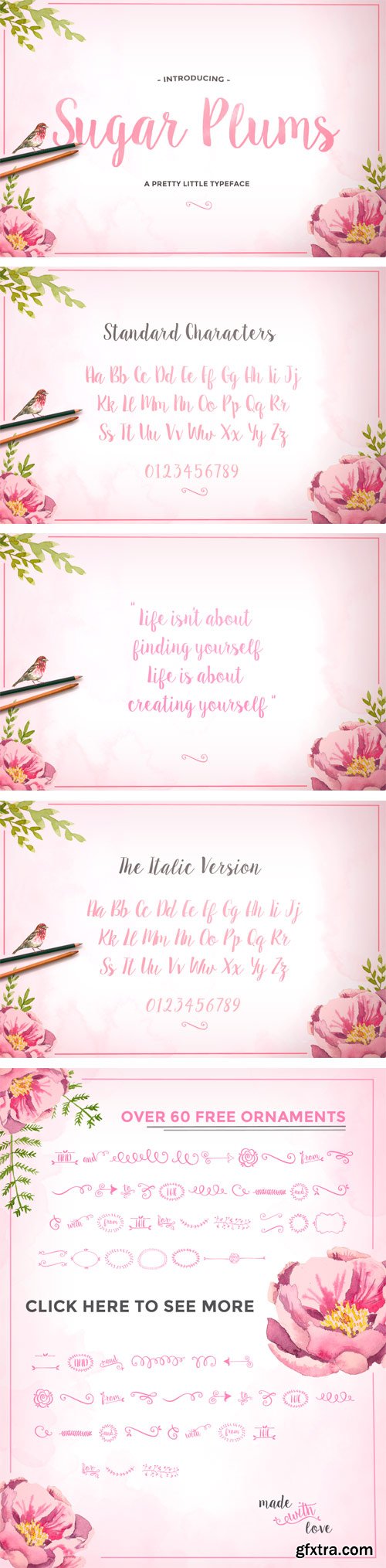
- Sugar Plums is a new hand written font. Available for both personal and commercial use. No extended license is required. Download and use Sugar Plums Script for anything and everything. Including over 120 different hand drawn characters for a range of languages and dialects. As well as an Italic version and over 60 hand drawn ornaments and phrases which are ready to use with one click.